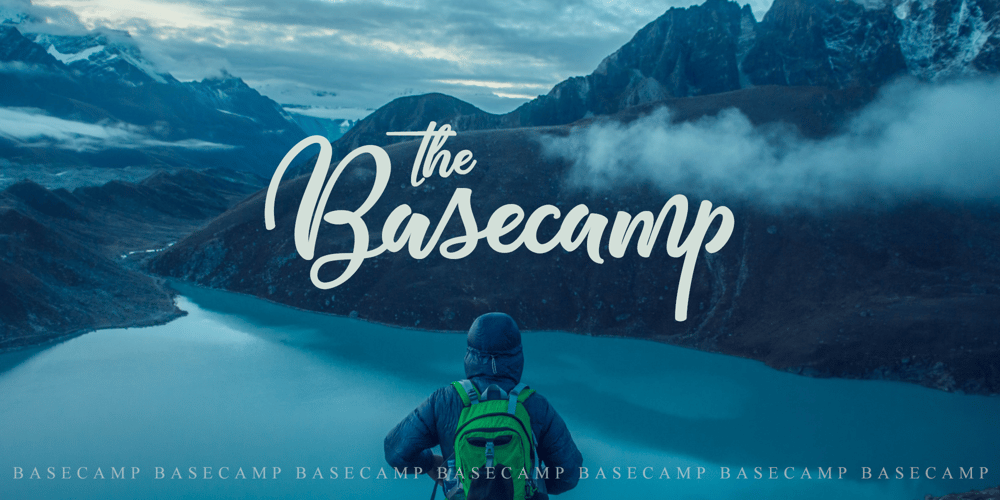
Basecamp Font Family was designed by Symon Adam Abdullah and published by Jorsecreative. Basecamp contains 1 styles and family package options. Introducing !The Basecamp the beautiful script brush Fonts and unique, it is a model of modern calligraphy typography in combination with calligraphy writing style. Star Font consists of 433 glyphs, including alternative Alternative options including seven lowercase terminal elect and early letters, ligatures, alternate, and multiple language support. Thank you.